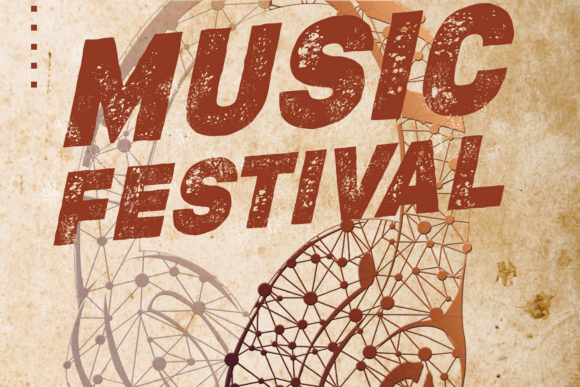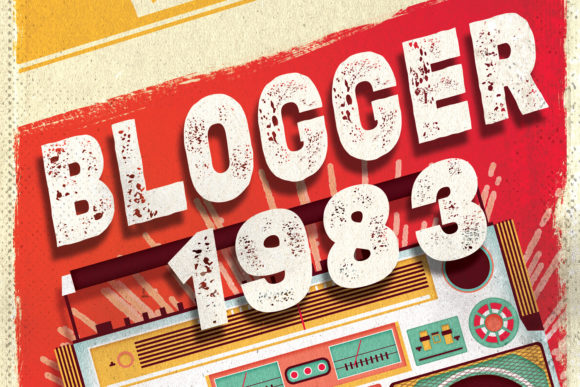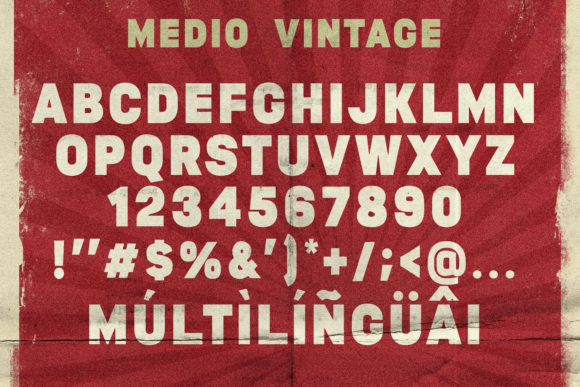
Introduction to Medio Font
Have you ever stared at a blank canvas, wondering how to bring your creative vision to life? The blank page can be intimidating, but what if you had the perfect tool to spark your imagination? That’s where the Medio Font comes in – a bold, chunky display font that adds a touch of sophistication to any project.
Whether you’re working on a high-quality design project or need a versatile font for your creative endeavors, Medio Font is an invaluable resource. With its unique character and transparent background, it’s perfect for designers looking to add a touch of personality to their work. And the best part? You can download it for free, making it an accessible design resource for anyone.
- High-quality vector design ideal for creative projects, ensuring crisp and clear visuals.
- Large character set, including Latin, Cyrillic, and Greek alphabets, catering to diverse design requirements.
- Unique, hand-drawn design aesthetic, adding a touch of creativity and personality to any project.
Honest Review: Medio Font
As a designer, I’m always on the lookout for high-quality fonts that can elevate my creative projects. Recently, I stumbled upon Medio Font, and I’m excited to share my honest review with you.
What works well with Medio Font is its versatility. It’s perfect for a wide range of design projects, from web design to print materials. The font’s modern design and clean lines make it a great choice for any creative project.
- ✨ High-quality design: Medio Font is well-crafted and looks great on any background.
- ✨ Transparent background: The font’s transparent background makes it easy to overlay on any design element.
However, there are some limitations to consider. The font may not be suitable for all types of projects, especially those that require a more formal tone.
Overall, I’m impressed with Medio Font. It’s a great addition to any designer’s toolkit, and its free download makes it an accessible design resource. While it may not be perfect for every project, it’s a solid choice for many creative endeavors.
Medio Font is a versatile and high-quality design resource perfect for any creative project. With its unique style and transparent background, this font is ideal for adding a touch of elegance to your designs.
Use Medio Font in combination with other high-quality design resources to create a cohesive and visually appealing design. Experiment with different font sizes and styles to add depth and interest to your design.
Medio Font is perfect for creating invitations, business cards, and other marketing materials. Its elegant style and transparent background make it ideal for use in wedding invitations, event promotions, and other creative projects.